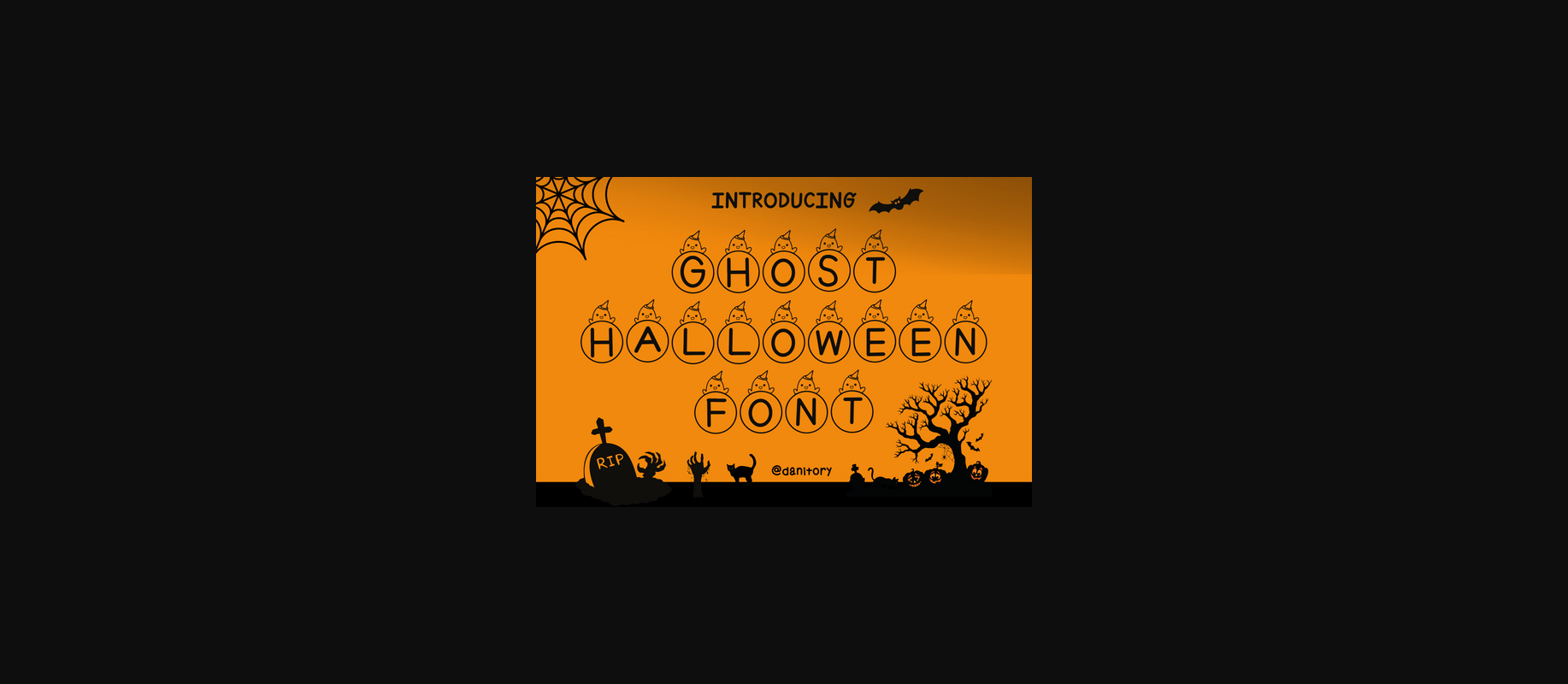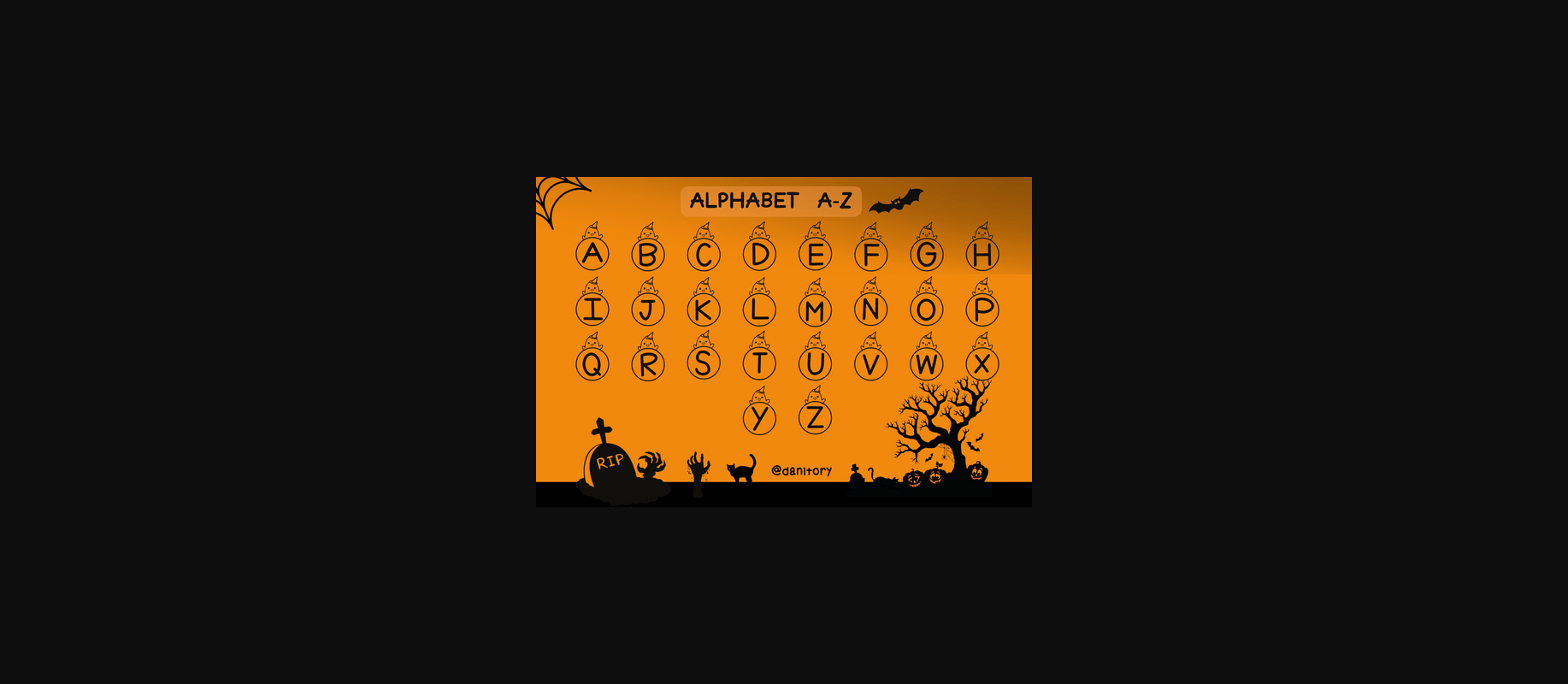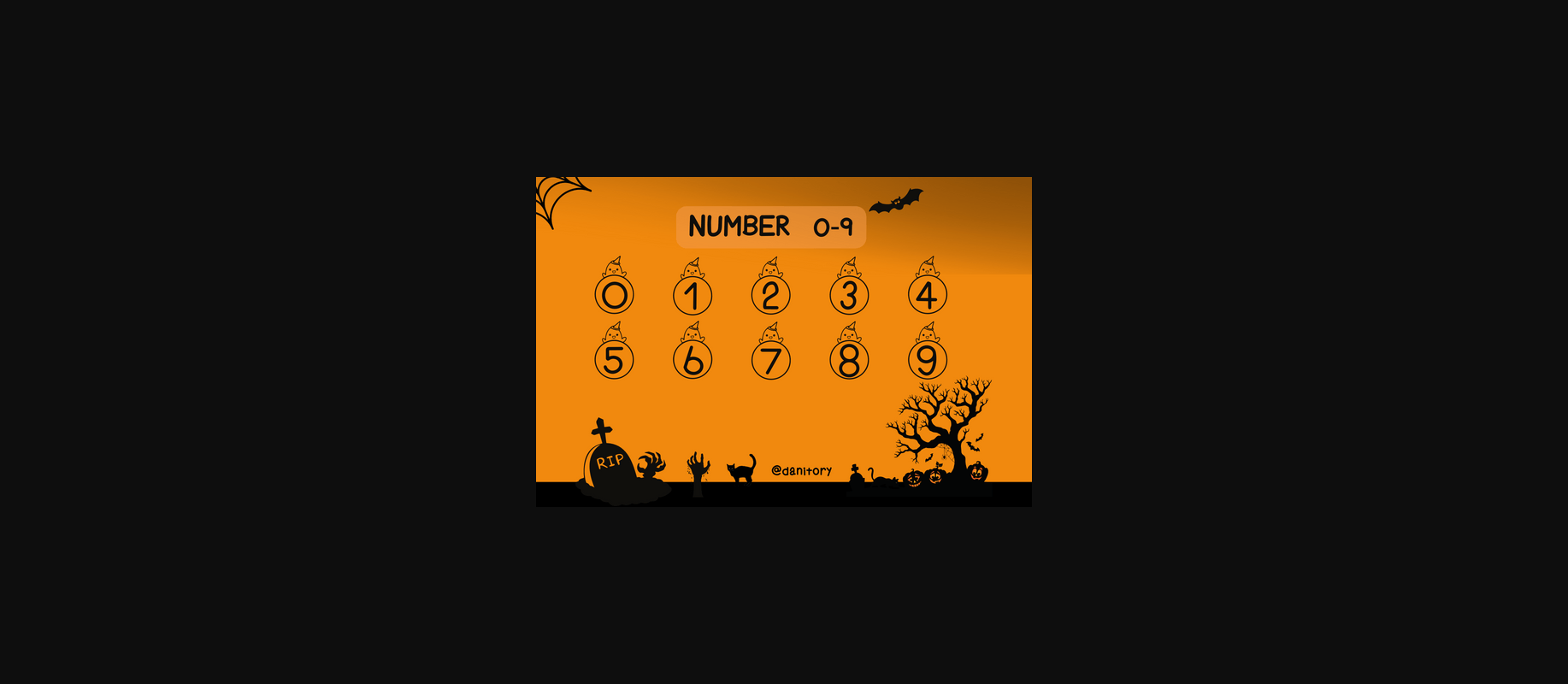
HomeDecorative FontsGhost Halloween Font Decorative Fonts Ghost Halloween Font FacebookXPinterestWhatsApp 1 of 6 ... Ghost Halloween Font Poster 2... Ghost Halloween Font Poster 3... Ghost Halloween Font Poster 4... Ghost Halloween Font Poster 5... Ghost Halloween Font Poster 6... About Ghost Halloween Font Halloween Ghost is a cute and spooky decorative monogram font. Whimsical and quirky, this font will be perfect for all your Halloween party designs. DOWNLOAD NOW People also explored Curly Funky Font Magnitude Love Julietta Marliona Font Amelia Amanda Font The Bugatten Font Canoomi Noel Font Growming Font Saken Font 490 0 TagsGhost Halloween Font Previous articleHalloween Candy FontNext articleSnowflake Font LEAVE A REPLY Cancel reply Comment: Please enter your comment! Name:* Please enter your name here Email:* You have entered an incorrect email address! Please enter your email address here Website: Save my name, email, and website in this browser for the next time I comment. Personal Use Free Good Times Personal Use Free Read more about this font Alligator Font Personal Use Free Read more about this font Remember Personal Use Free Read more about this font Doodle Font Personal Use Free Read more about this font BLOG 5 Fonts That Will Dominate Design Trends in 2026 5 Fonts for 2026 That Will Dominate Design Trends Typography plays a critical role in visual communication, and as we look ahead to 2026, it’s... Modern Sans-Serif Fonts That Brands Love in 2025 Free Fonts Risk: Why Free Fonts Can Be Dangerous for Designers Elegant Wedding Invitation Fonts – Handwritten & Script Fonts